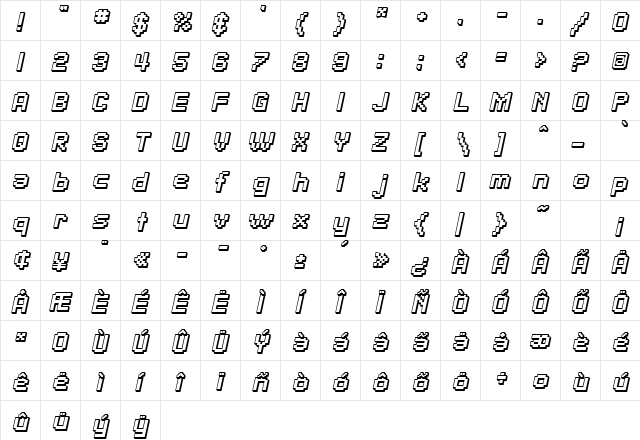
SF Pixelate Shaded Bold Oblique
Design Context for SF Pixelate Shaded Typeface
SF Pixelate Shaded celebrates the constraints of early digital type, turning pixel geometry into a distinctive and immediately recognisable style. The dynamic lean of this cut emphasises speed and emphasis in any layout.
Well-suited to indie game interfaces, retro computing aesthetics, and pixel art-adjacent design work.